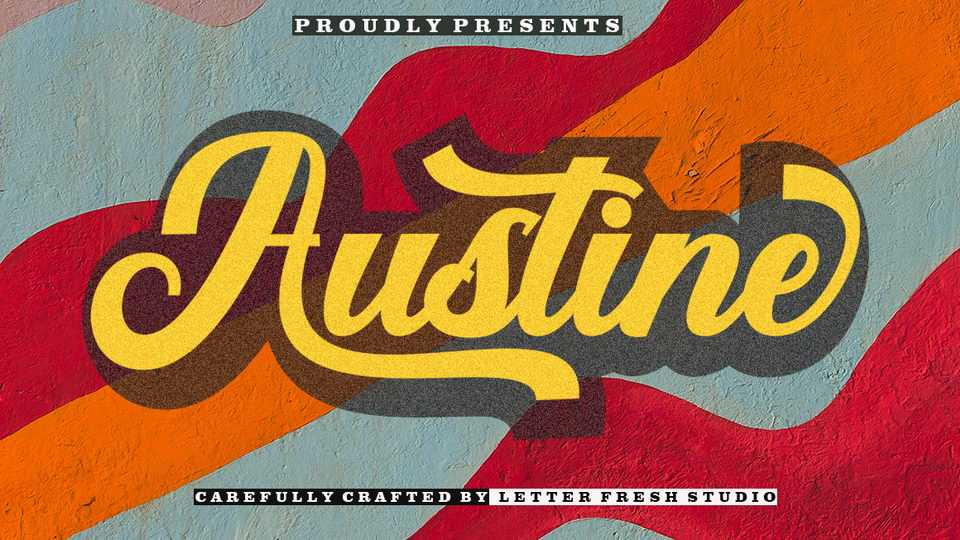
Download Austine Script, a retro handwritten font with a bold feel. Austine Script has great features for logos, posters, badges, t-shirt designs, lettering and more.
Designer: Letter Fresh Studio